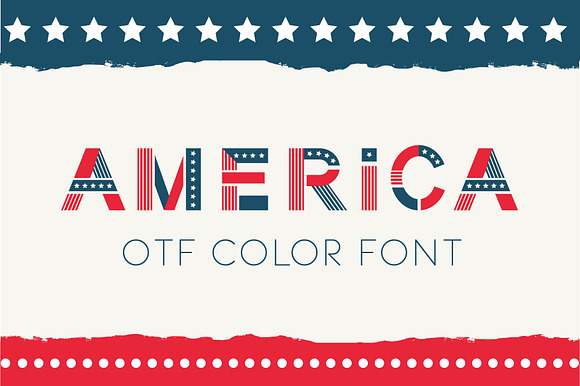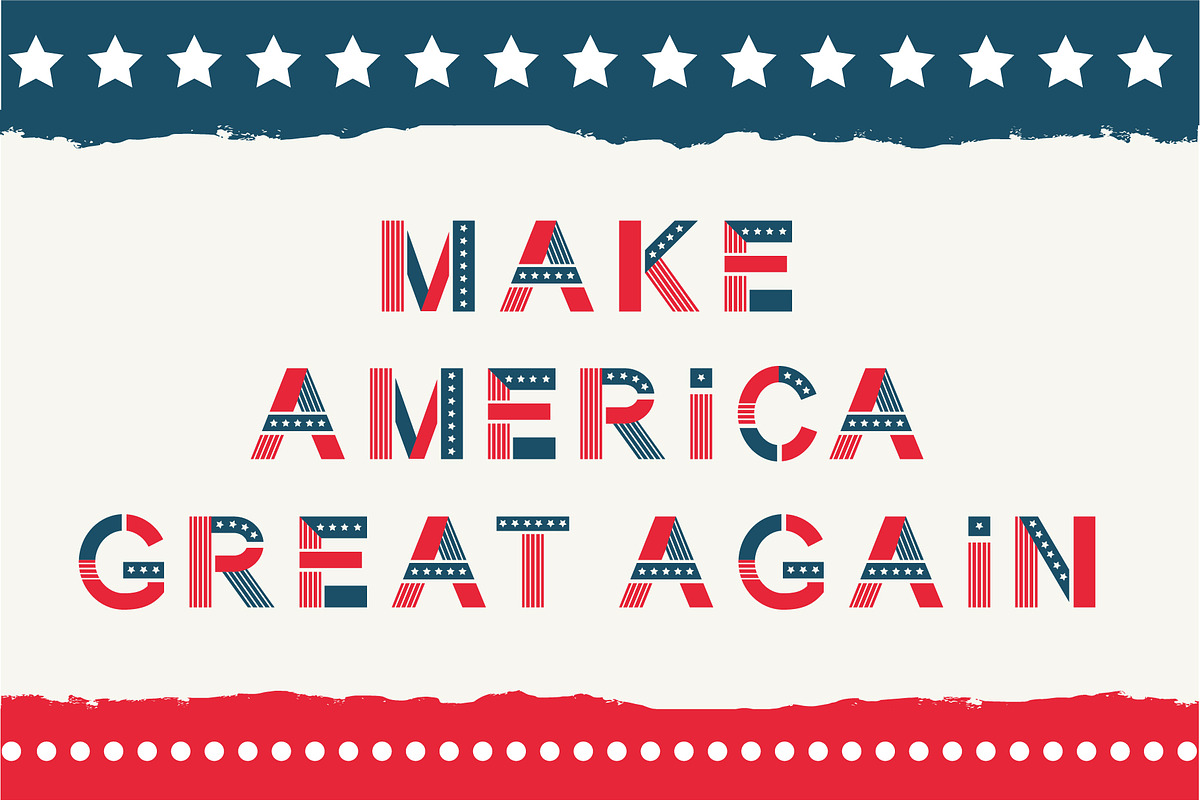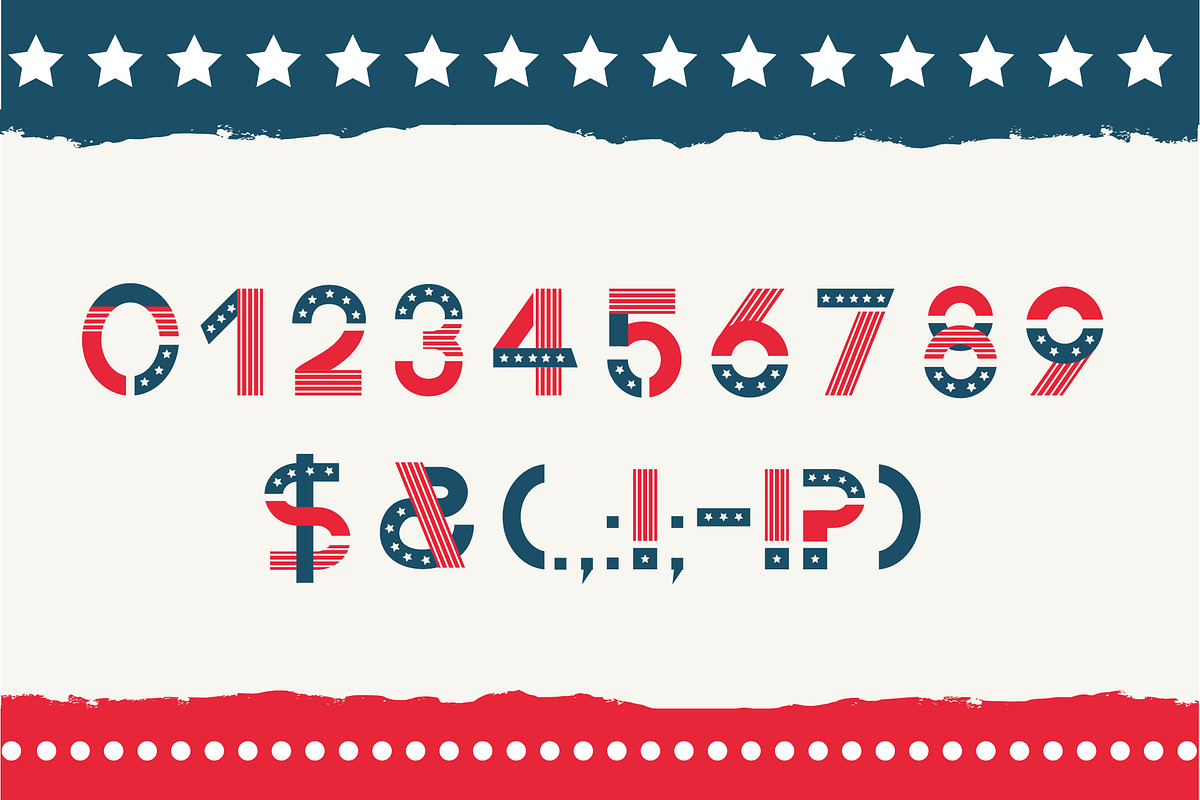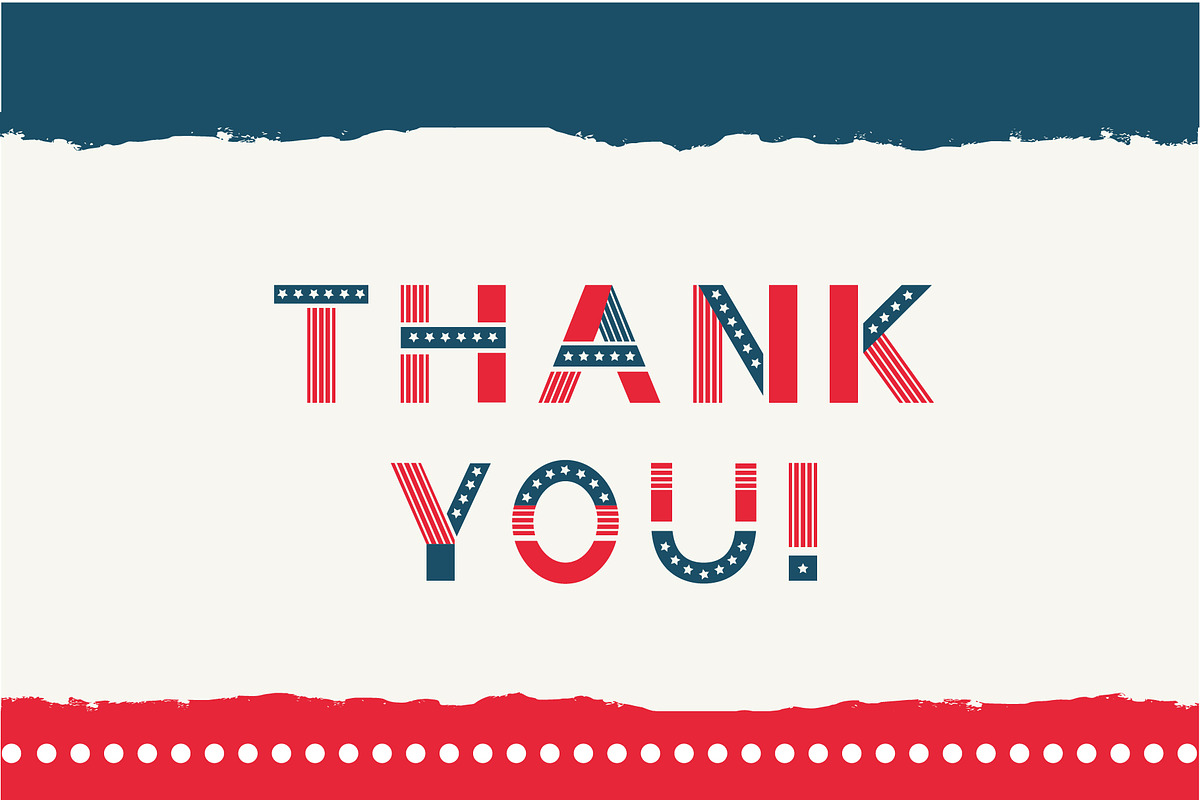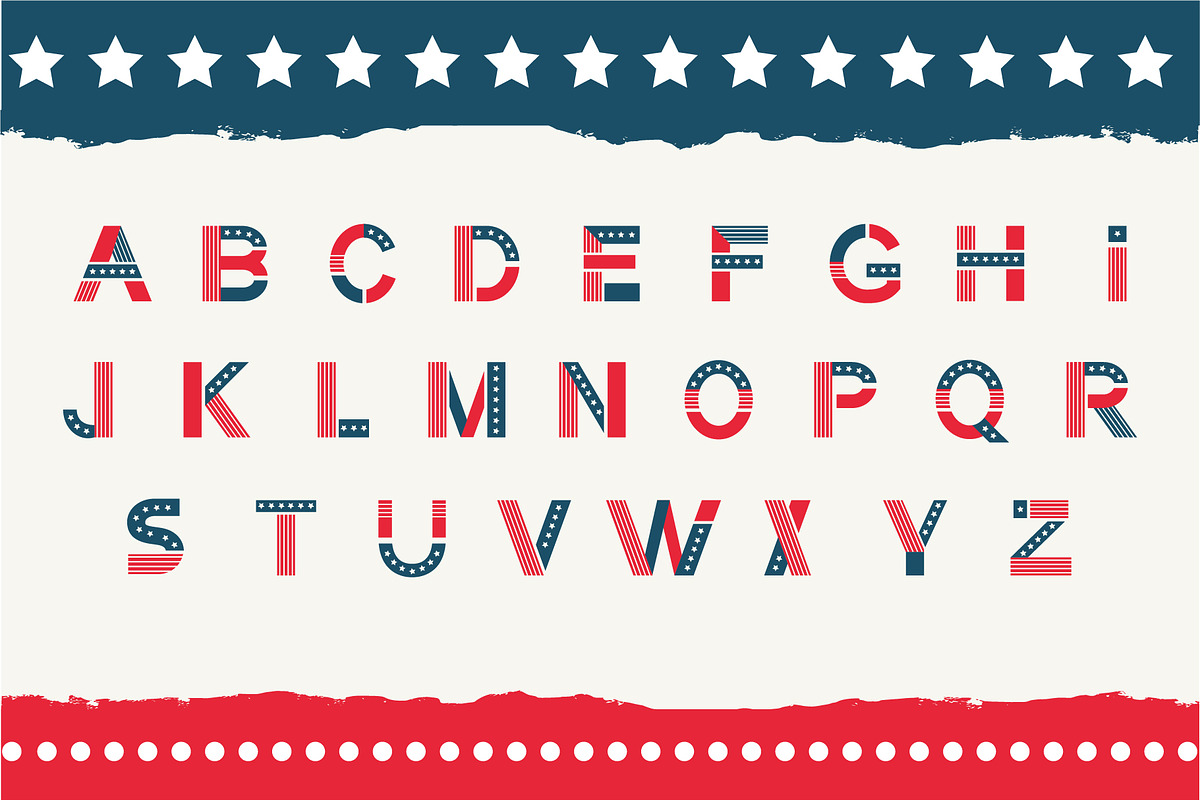
America otf color font.
America otf color font. Letters and numbers in national flag design, stripes of red and blue, white stars ornament for festive decoration.You can use this font for design logos, quotes prints on t-shirts and other.
OpenType-SVG Font was designed with Fontself Maker in Illustrator CC. Contains only uppercase letters and digits.